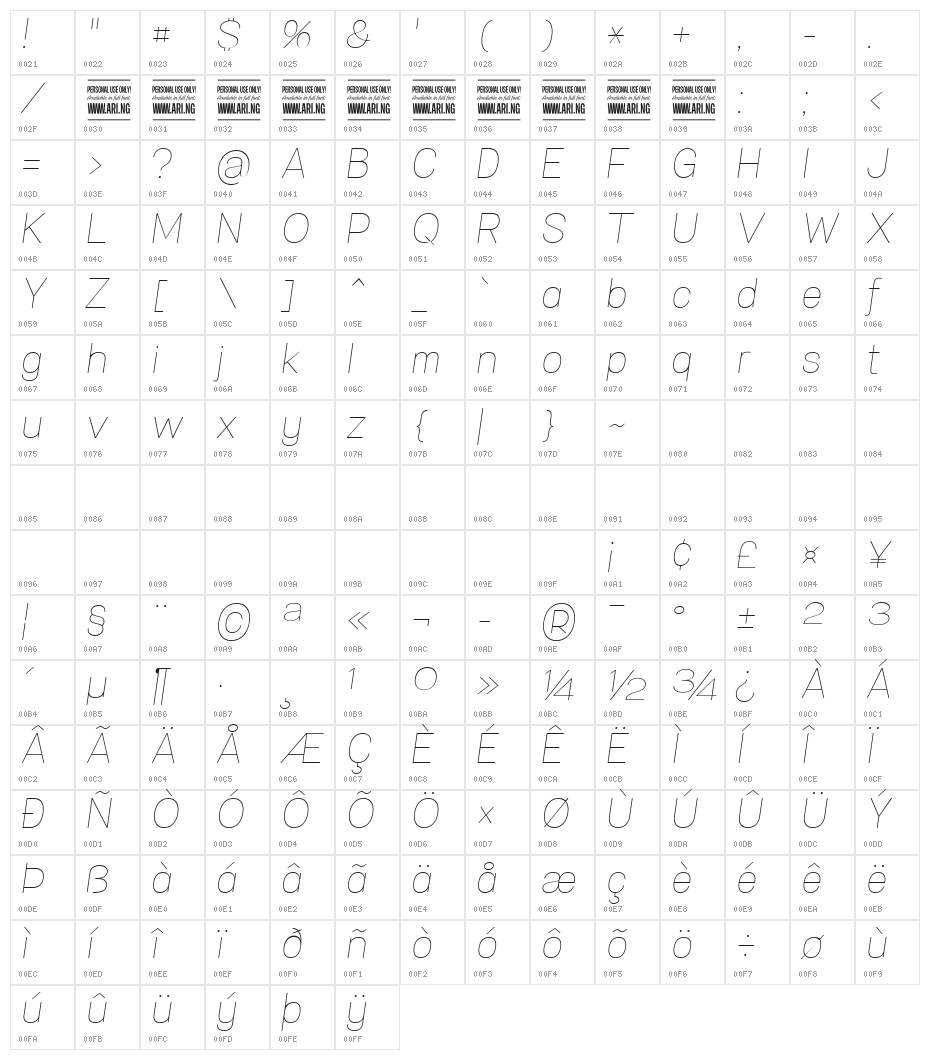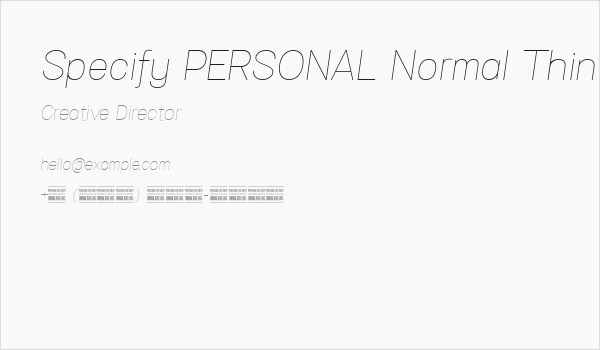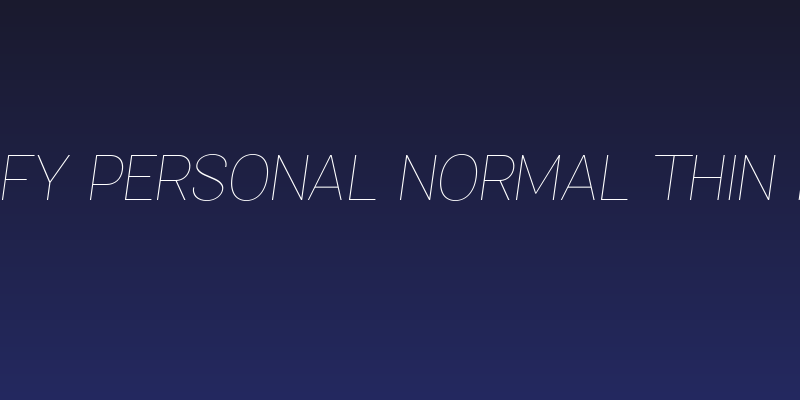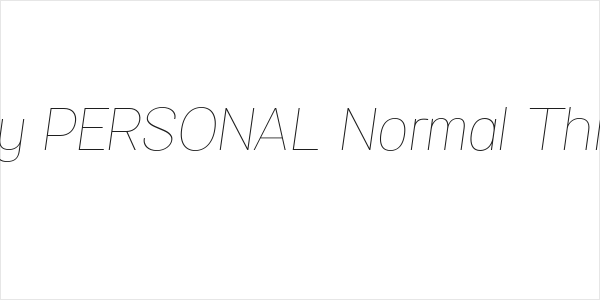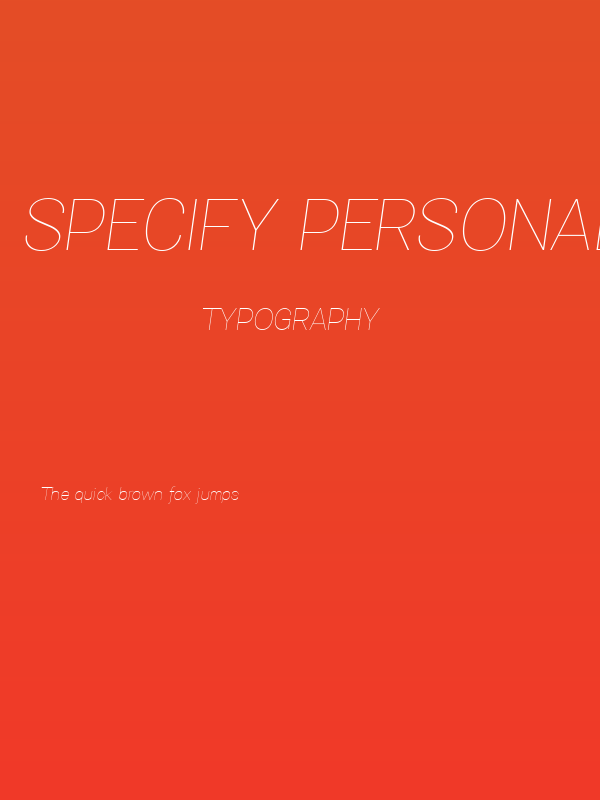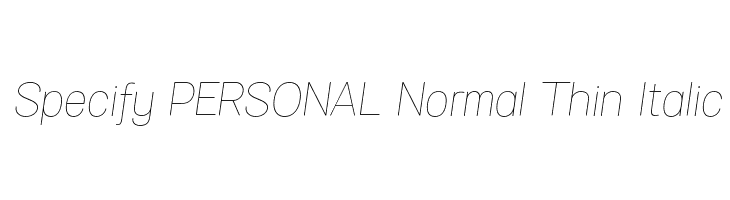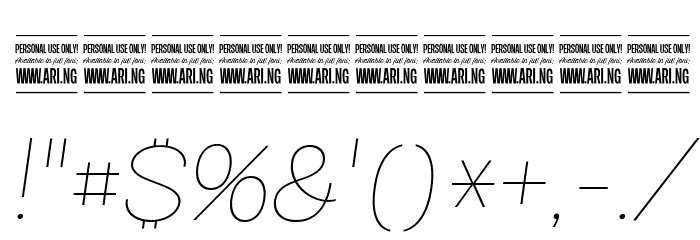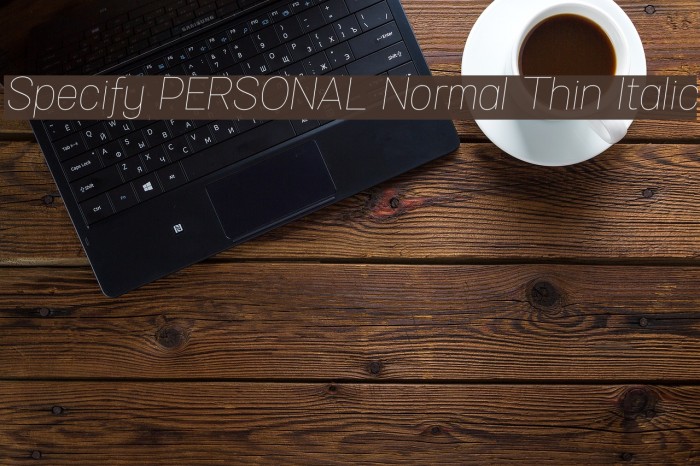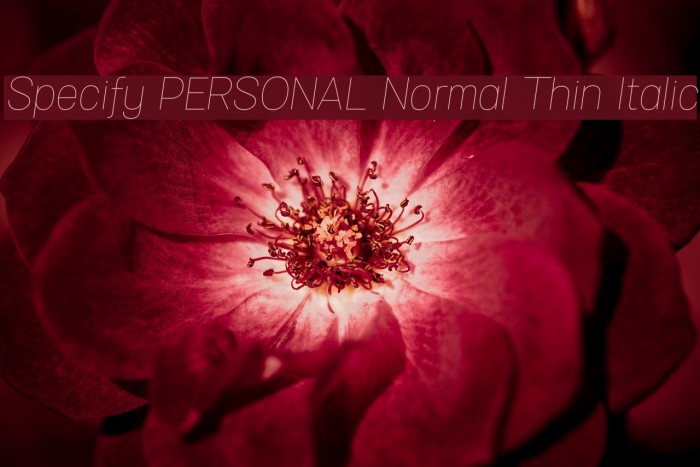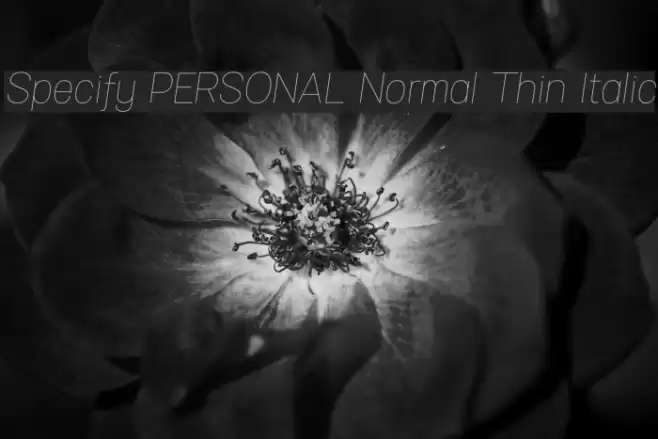
Specify PERSONAL Normal Thin Italic Font
Specify PERSONAL Normal Thin Italic Description
This font features a sleek and modern design with thin, elongated letterforms that convey elegance and sophistication. The characters are slightly italicized, adding a dynamic and fluid feel to the text. The overall appearance is clean and minimalistic, making it suitable for contemporary design projects. The font maintains a consistent stroke width throughout, emphasizing clarity and readability. Its geometric structure and open counters enhance its legibility, even at smaller sizes. The special characters are designed with the same attention to detail, ensuring uniformity across all glyphs.
| Proposed Projects | Ideal for fashion magazines, luxury branding, minimalist websites, and modern editorial layouts. |